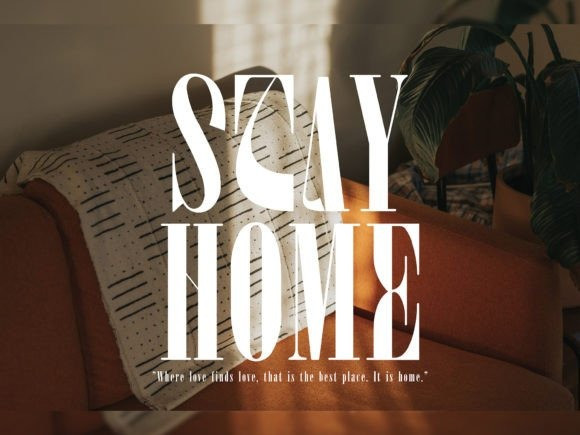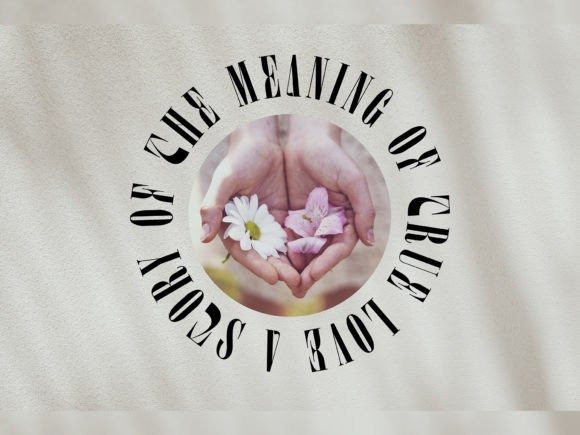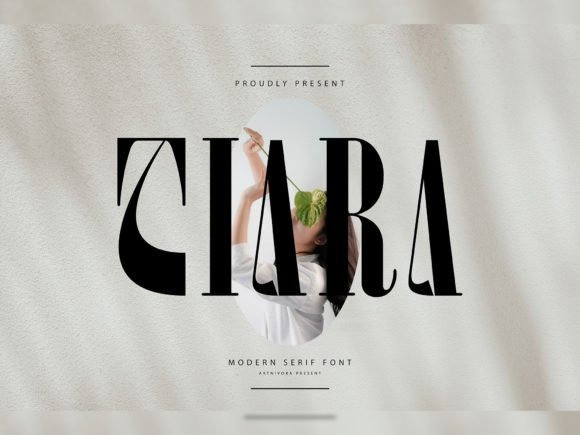
Tiara Font
Tiara Font, a simple and serif font. So perfect for you who needs a typeface for logo designs, magazine, social media, brochure, and many more.